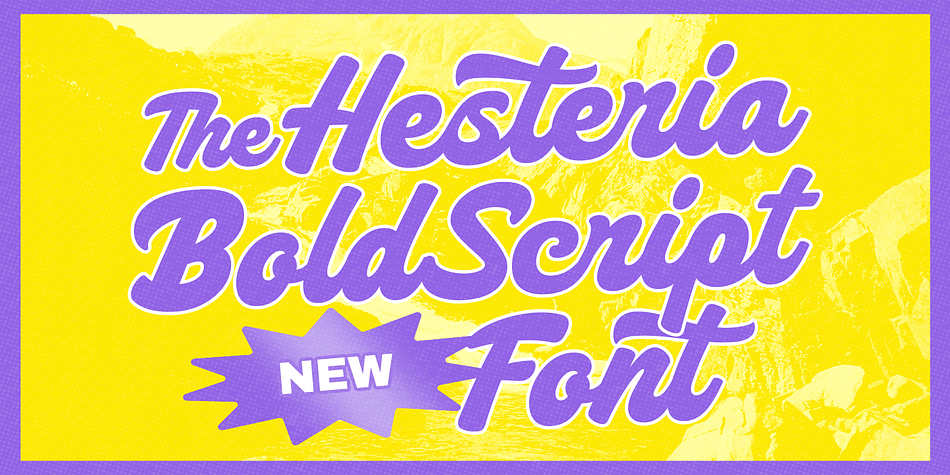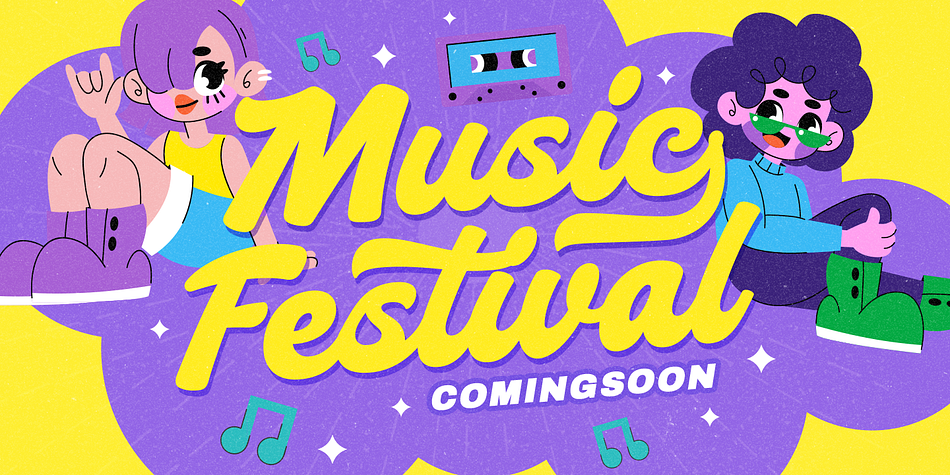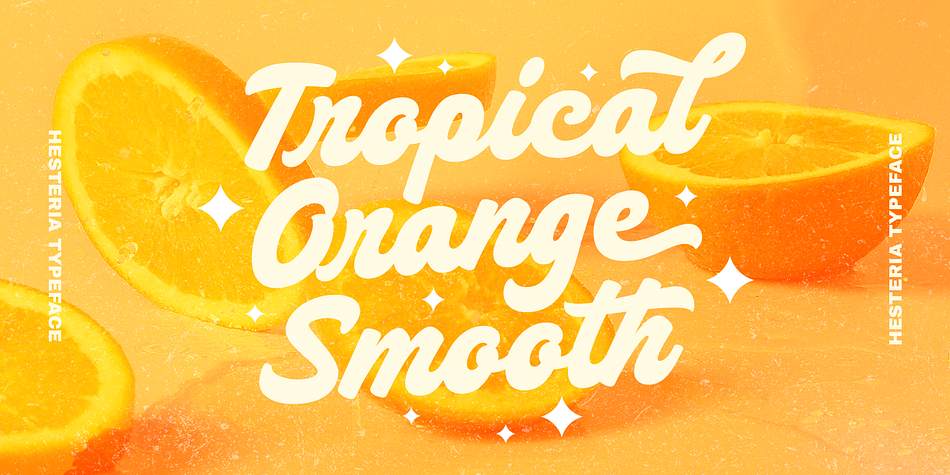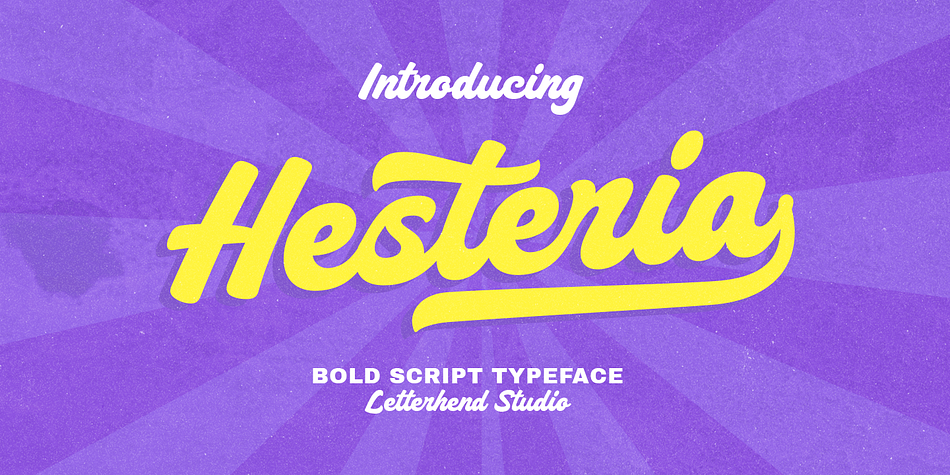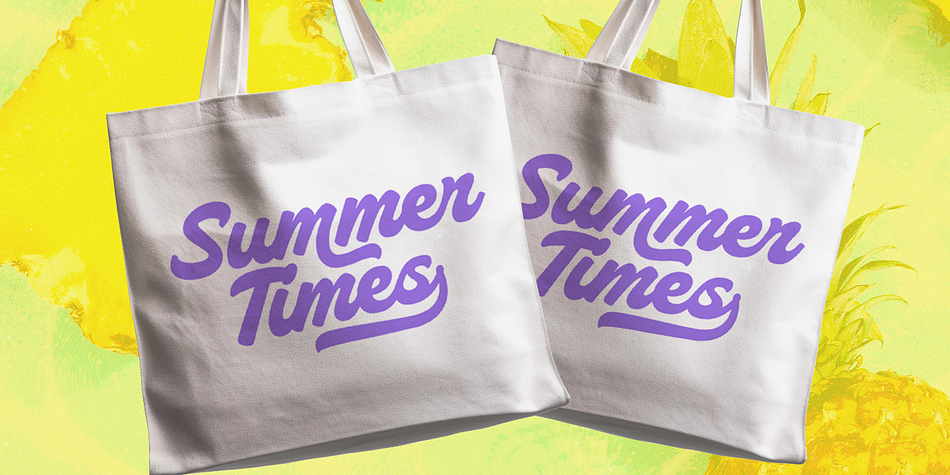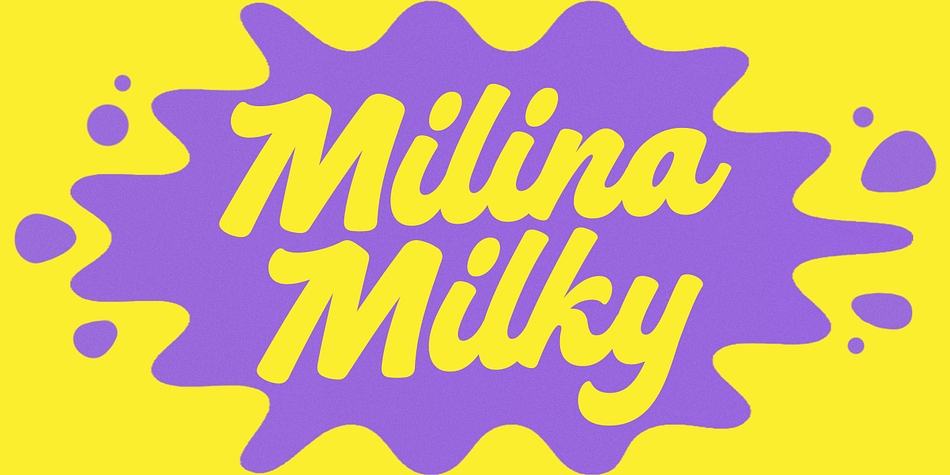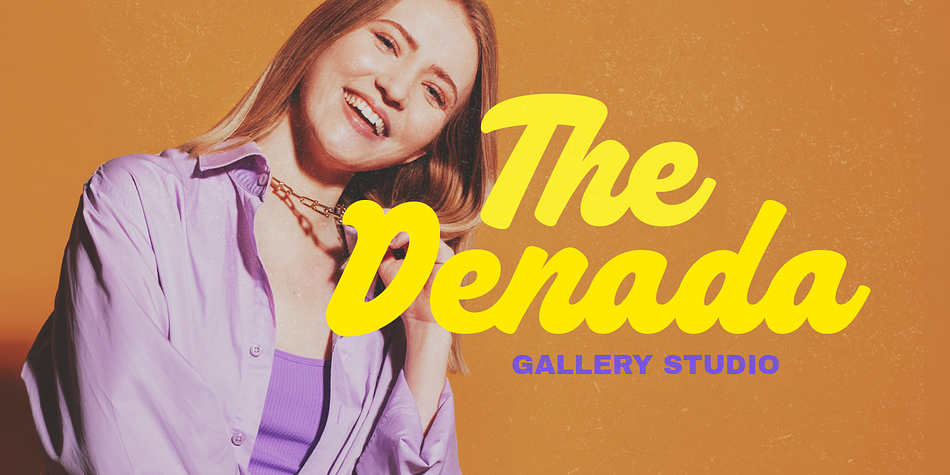
Hesteria
Designed by Hendry Juanda, Hesteria is a brush script font family published by Letterhend Studio.
Hesteria is a retro bold script which will bring you back to 60s feel. This font perfectly made to be applied especially in logo, and the other various formal forms such as invitations, labels, logos, magazines, books, greeting / wedding cards, packaging, fashion, make up, stationery, novels, labels or any type of advertising purpose.